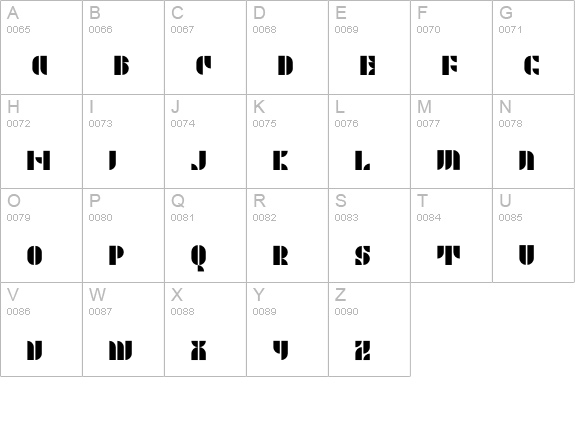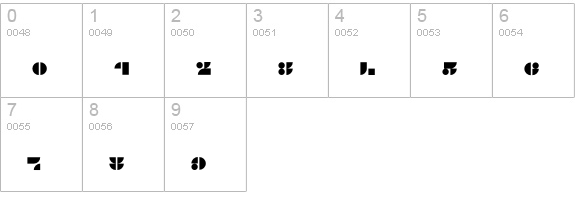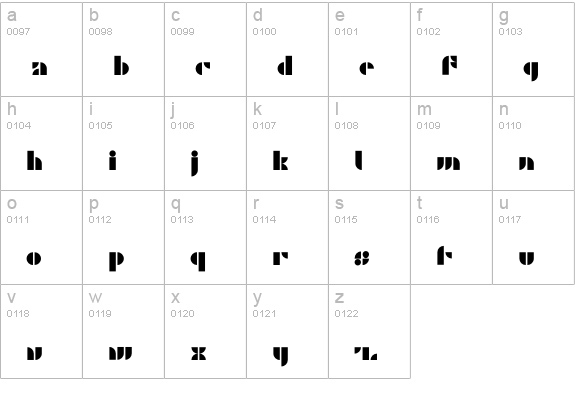
P22Albers-Two Font Details
P22Albers-Two font is an exquisite typeface that beautifully captures the essence of the Bauhaus movement. With its clean lines and geometric shapes, this font pays homage to the groundbreaking work of Josef Albers, a renowned artist and educator. Designed with precision and attention to detail, P22Albers-Two font is a versatile choice for a wide range of design projects. Its bold and distinctive letterforms make a strong visual impact, while its simplicity ensures readability in both print and digital mediums. This font is freely available to download at FontsMarket.com, making it accessible to designers, artists, and enthusiasts alike. Whether you're creating a logo, designing a poster, or crafting a website, P22Albers-Two font is a valuable asset that will elevate your work to new heights. With a wide range of weights and styles, this font offers endless possibilities for creative expression. From regular to italic, bold to thin, P22Albers-Two font allows you to experiment with various typographic treatments and create unique designs that stand out from the crowd. Furthermore, the versatility of P22Albers-Two font extends beyond its aesthetic appeal. Its extensive character set includes support for multiple languages, ensuring that your message can be effectively communicated to a global audience. As a free font, P22Albers-Two font provides an incredible value for designers and creatives who are looking to add a touch of modern sophistication to their projects. Whether you're a seasoned professional or just starting out, this font is a valuable addition to your typographic toolbox. Download P22Albers-Two font for free at FontsMarket.com and unlock the potential of this stunning typeface. With its timeless design and exceptional craftsmanship, P22Albers-Two font is sure to leave a lasting impression on any project you undertake.